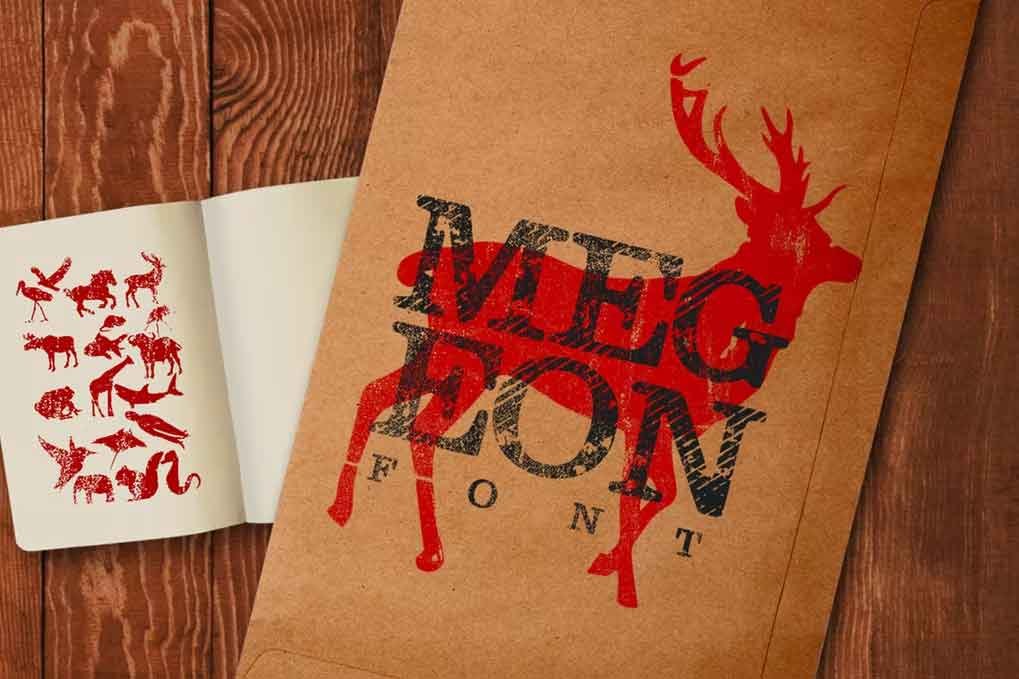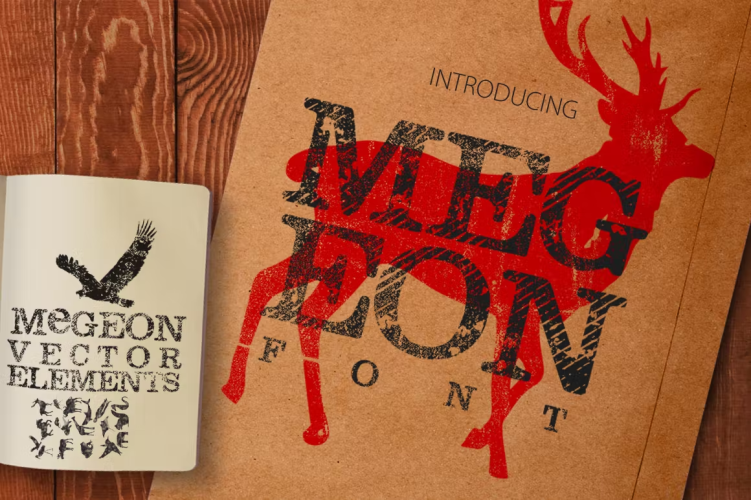
Megeon Font
Megeon Font *A bold//vintage/grunge style font set, perfect for creating headline display text very easy.
Megeon Font is a Serif Fonts font that brings a professional and versatile look to your projects. Megeon Font  *A bold//vintage/grunge style font set, perfect for creating headline display text very easy.